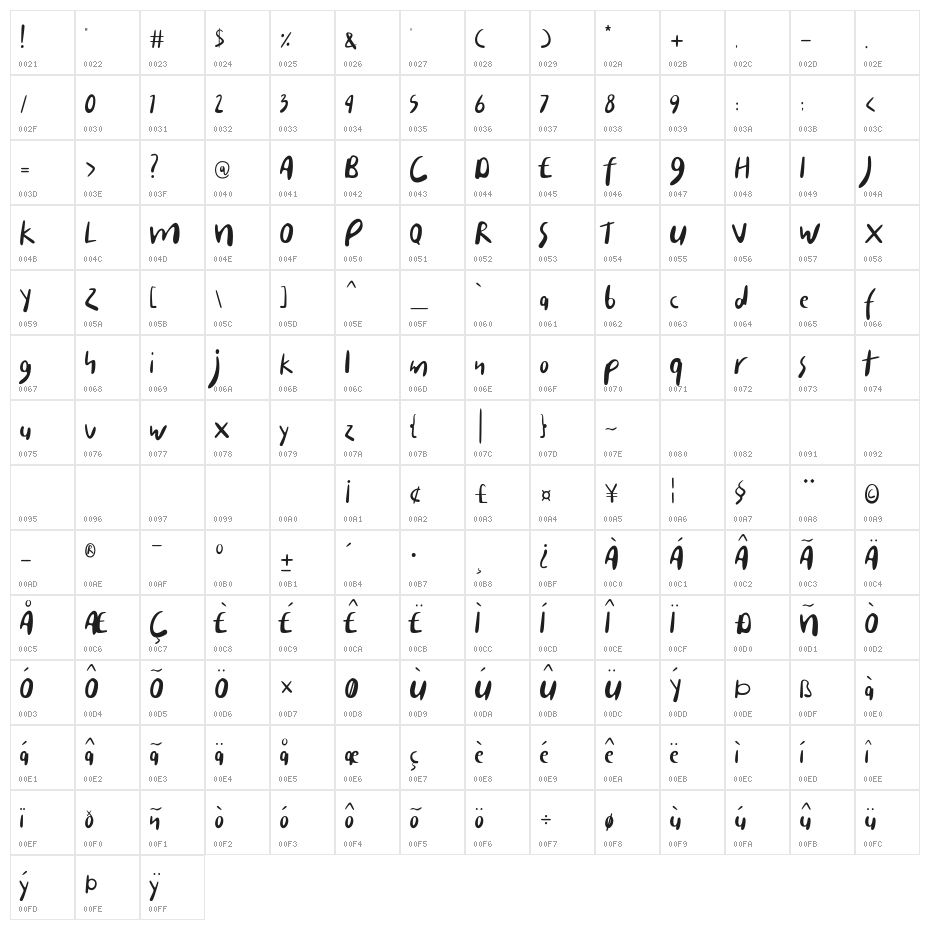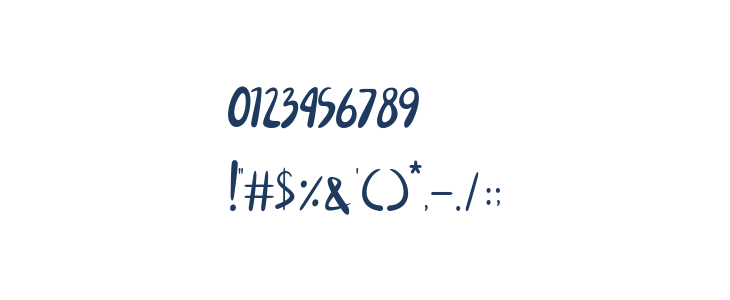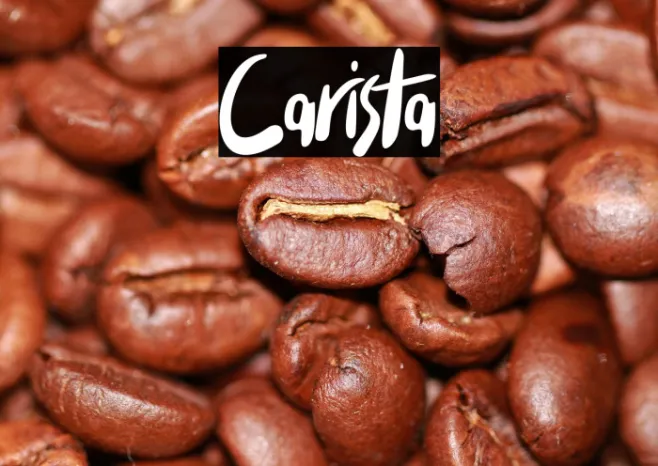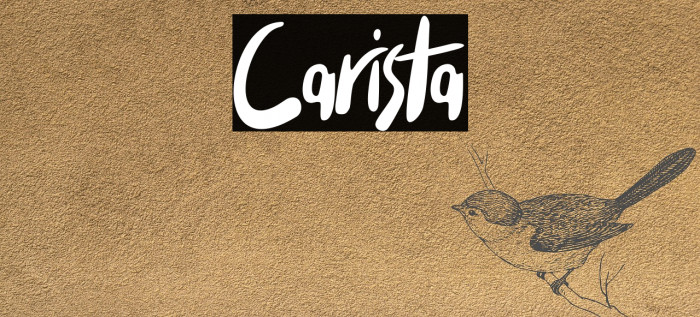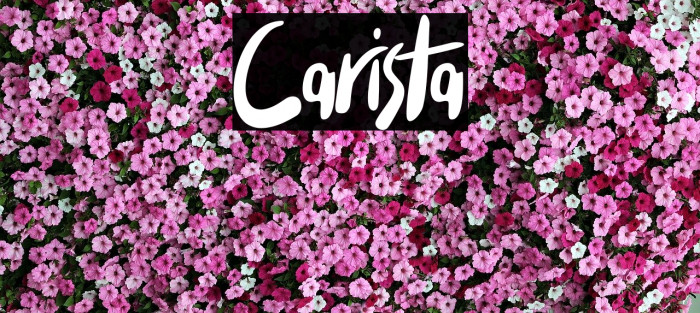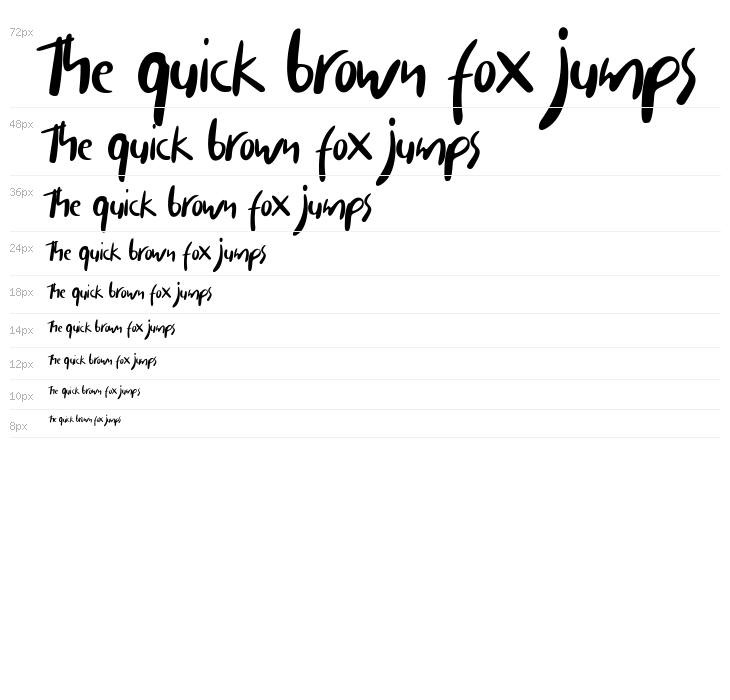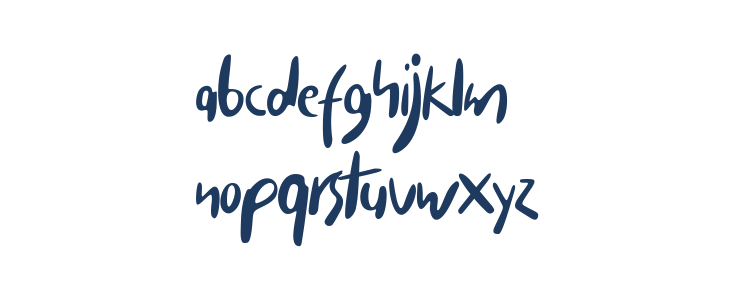
Carista Font
Carista Description
This font features a playful and dynamic handwritten style, characterized by its bold and flowing strokes. The letters exhibit a lively and informal appearance, with a slight slant that adds to its energetic feel. The uppercase and lowercase letters maintain a consistent style, with rounded edges and varying stroke widths that create a sense of movement. The numerals and special characters are designed to complement the alphabet, maintaining the same whimsical and bold aesthetic. This font is ideal for projects that require a personal and approachable touch, offering a unique blend of creativity and readability.
| Overall Style | Playful, Creative |
| Proposed Projects | Ideal for greeting cards, children's books, playful branding, and creative posters. |